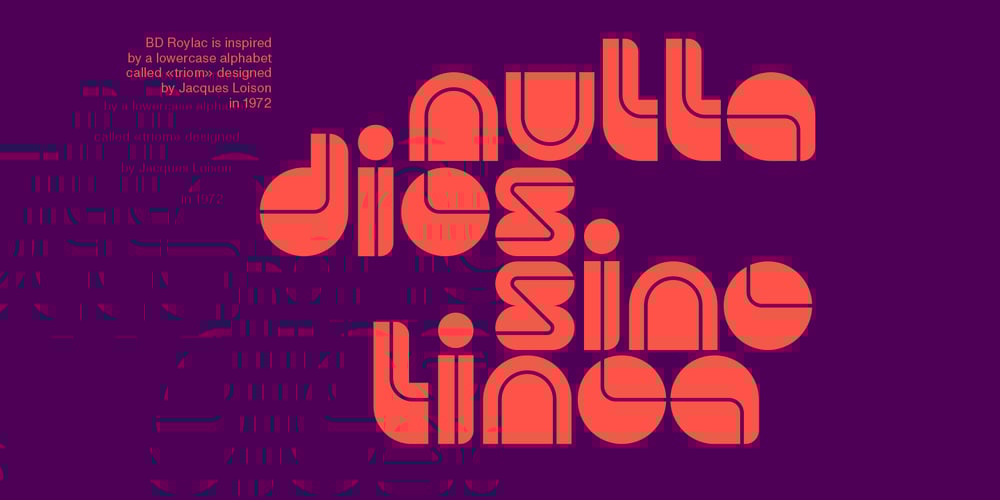
BD Roylac
BD Roylac font
BD Roylac Font Family was designed by Lorenz (Lopetz) Gianfreda and published by Typedifferent. BD Roylac contains 1 styles and family package options. The BD Roylac typeface has its roots in some lowercase glyphs drawn by Jacques Loison in 1972. Some of these characters are included in the use of stylistic alternates. Filed under a retro-futuristic design the font separates two filled shapes by a thin and curvy line; sometimes following to the path leaning readability and sometimes interfere with it. The font is dedicated to the BD fanboy Monsieur «Eric de Broche des Combes» aka «Roy La Combe» to his fiftieth anniversary.